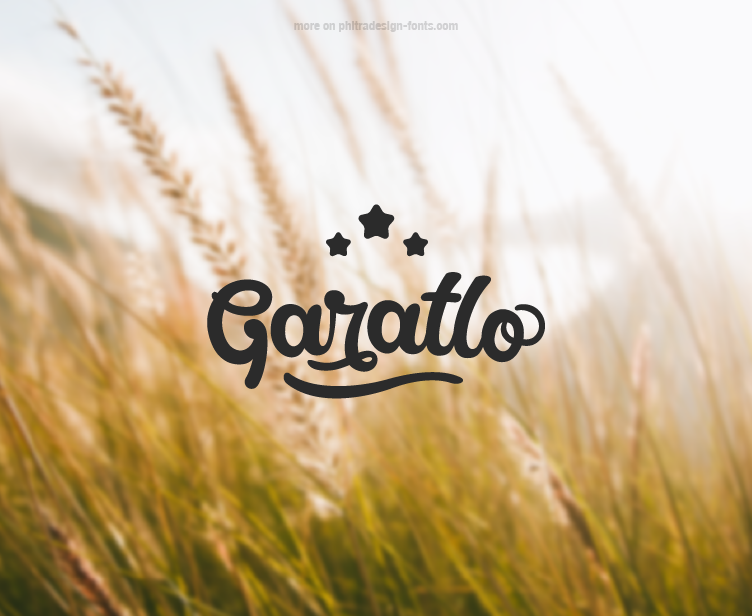
Our new script font is available! Garatlo has a very modern look and is perfect for any kind of logo, presentation, headline or other stuff. You can also try the alternative letters to add some personal touch. The full version includes language support, symbols, a cool vector pack and all the ligatures and features for a perfect work. NOTE: This font is free for personal use only. If you want to use it commercially, please buy a license on our website: www.phitradesign-fonts.com/garatlo |